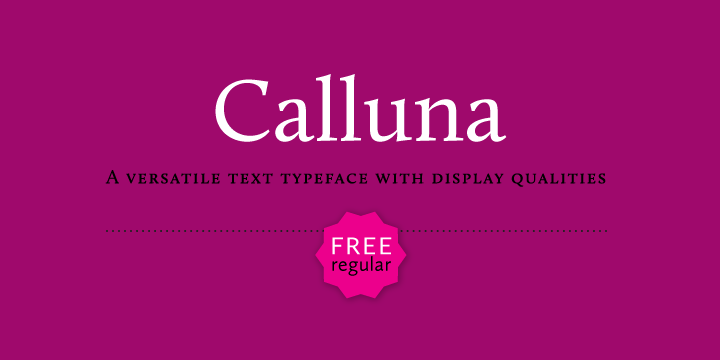
Calluna Font is perfect for botanical book publishing, nature magazine layouts, wildflower field guides, garden center branding, natural skincare packaging, organic herbal product labels, Scottish Highland tourism materials, heather honey branding, natural wellness publications, and countryside retreat designs that require authentic natural beauty and rustic elegance.
This font is exciting because it captures the wild beauty and hardy resilience of heather flowers blooming across Scottish moorlands with letterforms that embody the natural grace and enduring strength of this beloved wildflower. Calluna Font features organic curves and natural proportions that reflect the gentle beauty of purple heather fields while maintaining the robust character needed for contemporary design applications.
Calluna Font family includes Regular, Bold, Light, Medium, Italic, Condensed, Wild, and Botanical versions, plus nature symbols, flower ornaments, Scottish motifs, and heather-inspired flourishes that enhance the authentic wildflower aesthetic and provide comprehensive design solutions for natural and botanical applications.
For natural and botanical design projects, Calluna Font Free Download delivers exceptional organic character and countryside appeal. The font's nature-inspired letterforms and wildflower spirit make it perfect for botanical brands, natural product companies, and outdoor tourism seeking to communicate authenticity, natural beauty, and connection to the Scottish Highlands. Its rustic elegance appeals to audiences who appreciate wild nature and traditional countryside charm. The character set includes botanical alternates and natural variations that simulate wildflower growth patterns. Professional designers appreciate its ability to convey both natural authenticity and sophisticated design while maintaining excellent readability across botanical publications, natural product packaging, and countryside tourism materials, making it essential for brands that want to capture the untamed beauty of Scottish heather moorlands and communicate their deep connection to wild nature.